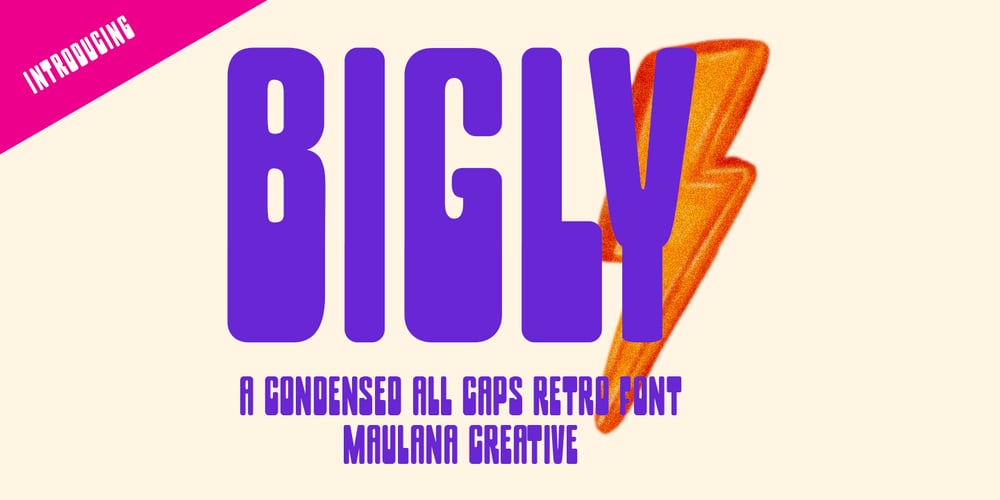
MC Bigly Font Family was designed by Gilang Maulana and published by Maulana Creative. MC Bigly contains 1 styles and family package options. Bigly is a condensed retro font. With bold stroke, fun character with a bit of ligatures and alternates. To give you an extra creative work. Bigly font support multilingual more than 100+ language. This font is good for logo design, Social media, Movie Titles, Books Titles, a short text even a long text letter and good for your secondary text font with script or serif. Make a stunning work with Bigly font. Cheers, Maulana Creative